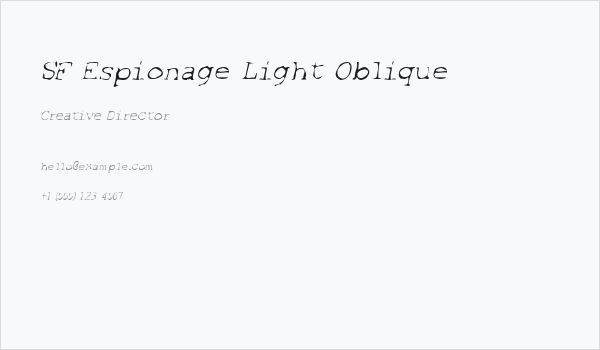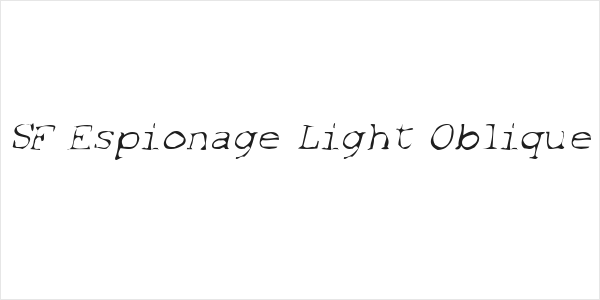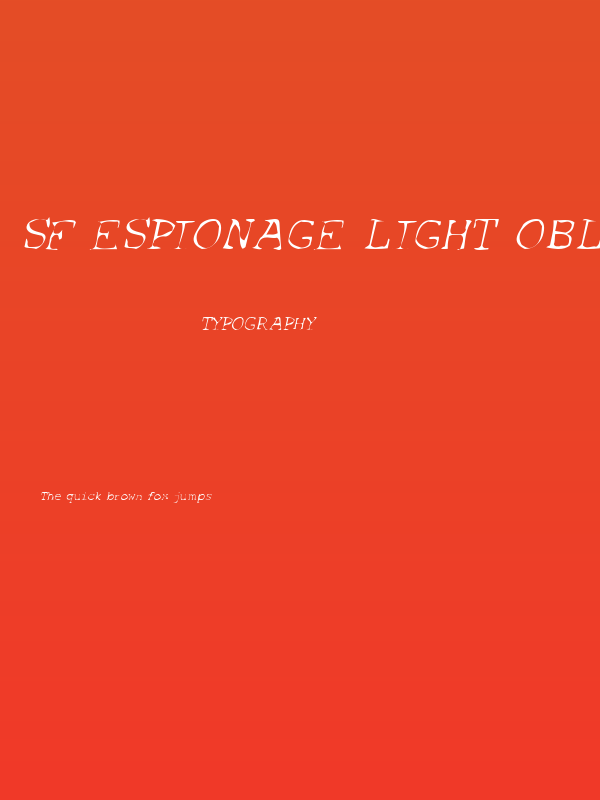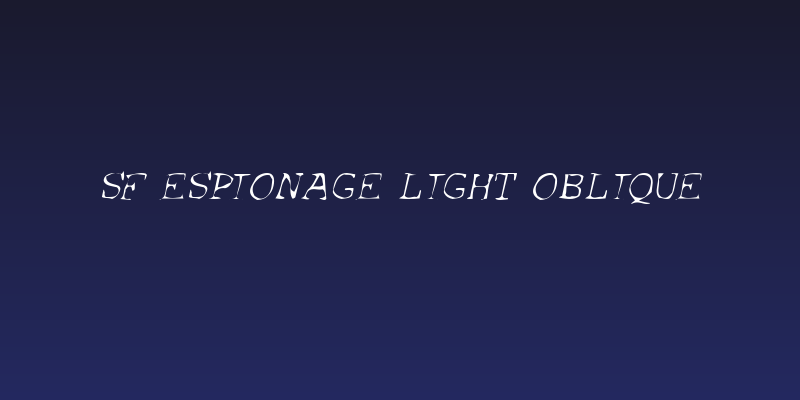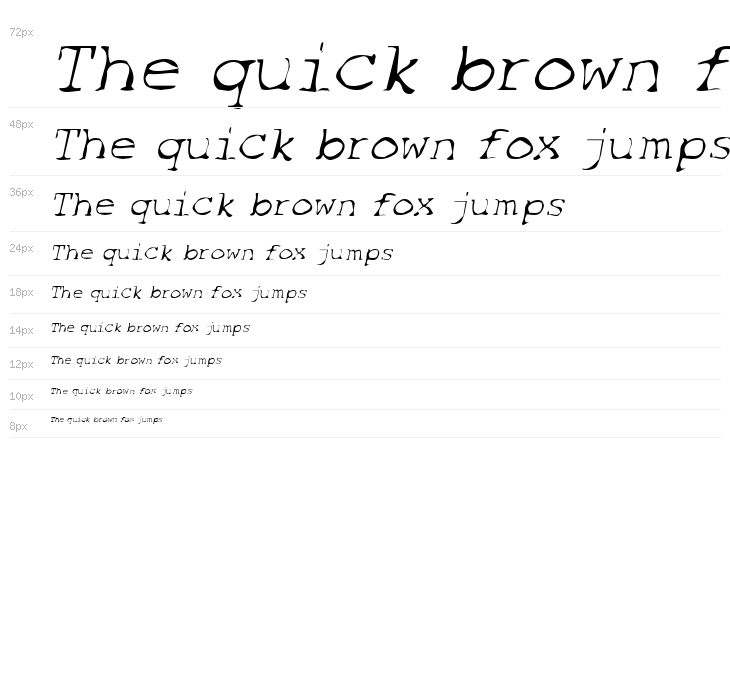
SF Espionage Light Oblique Font
SF Espionage Light Oblique Description
This font features a unique, oblique style with a light weight, giving it an elegant and slightly mysterious appearance. The characters are designed with a handwritten touch, incorporating irregular strokes and varying thicknesses that add to its distinctive charm. The uppercase letters are bold and prominent, while the lowercase letters maintain a consistent flow, enhancing readability. The numerals and special characters follow the same stylistic cues, ensuring a cohesive look across all text elements. This font's artistic flair makes it suitable for creative projects that require a touch of sophistication and intrigue.
| Proposed Projects | Ideal for use in mystery novels, spy-themed posters, artistic branding, and creative invitations. |